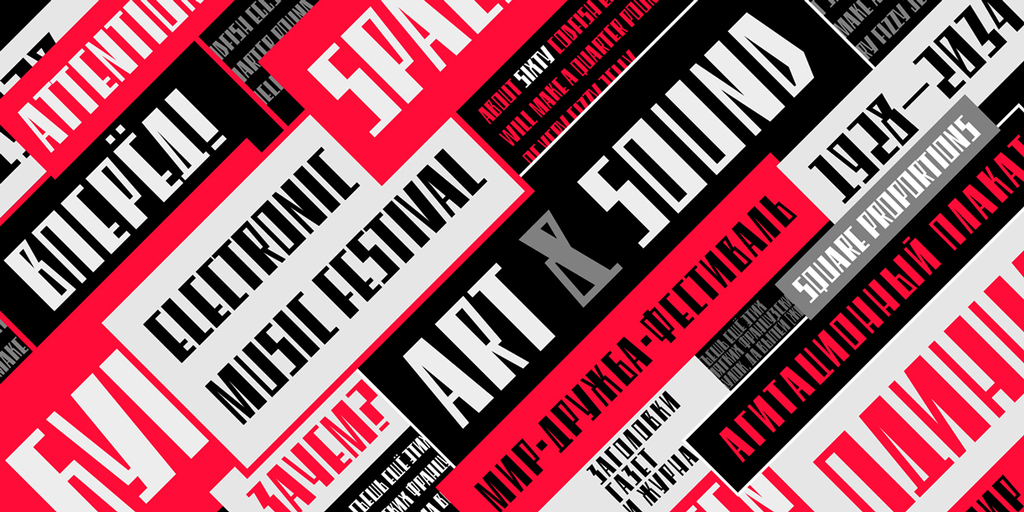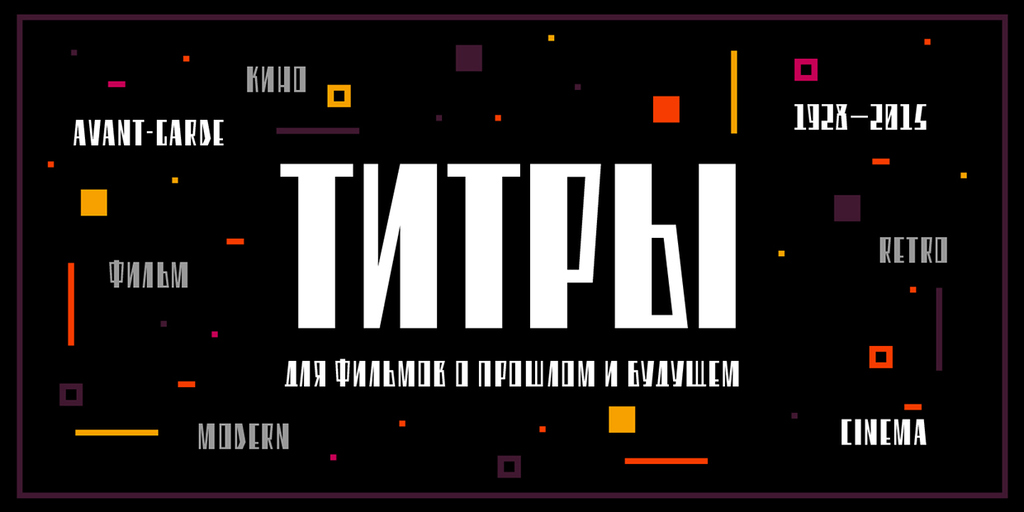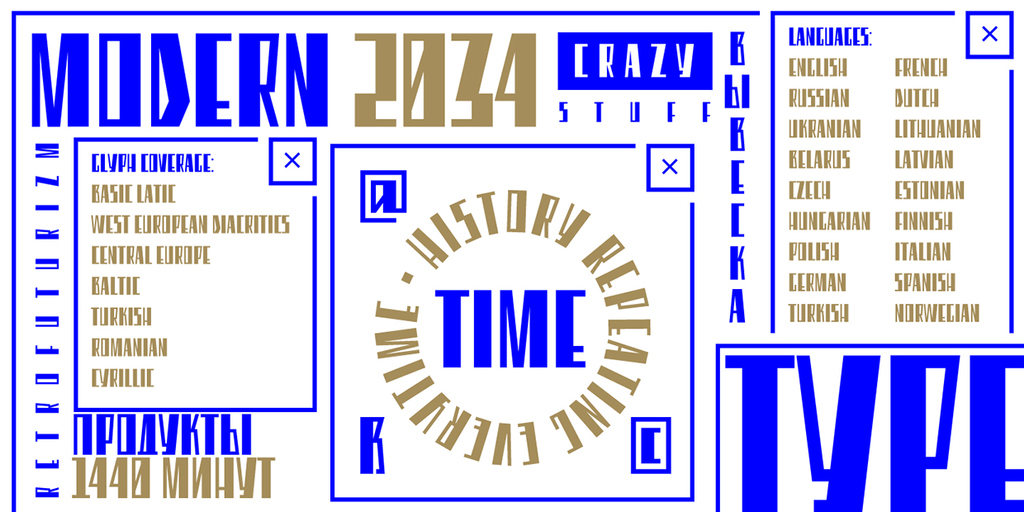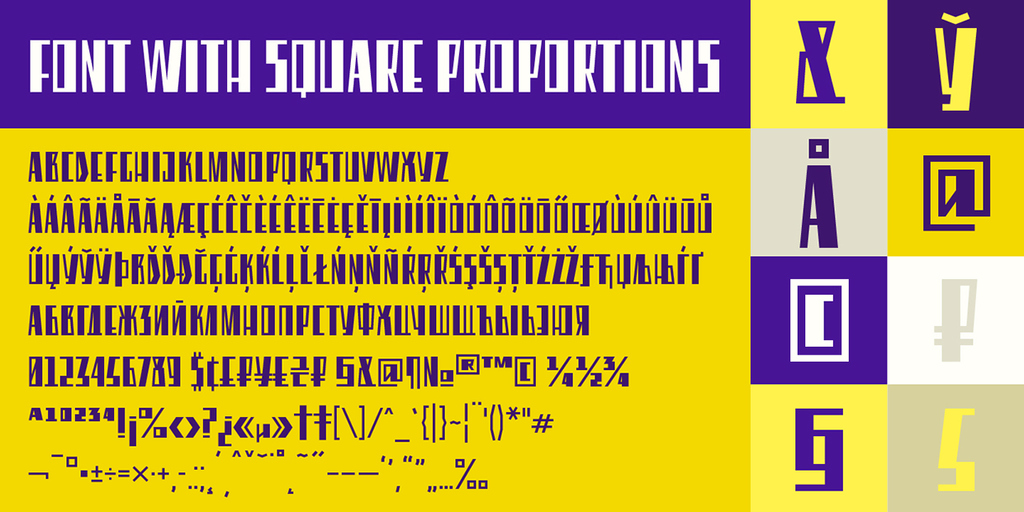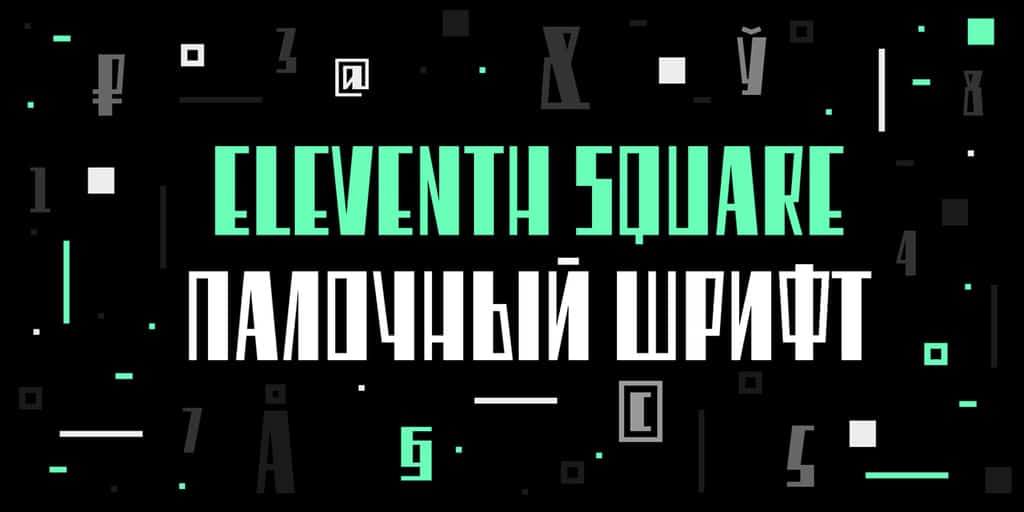
Eleventh Square Font
Eleventh Square – free retro font with square proportions. Idea & design: Evgeny Tarasenko, art-director: Ivan Gladkikh(TypeType School, St. Petersburg)